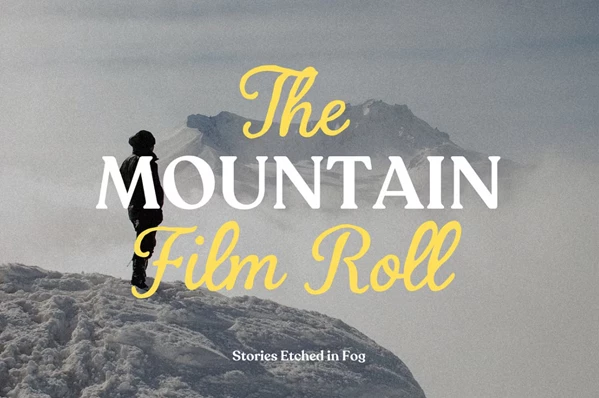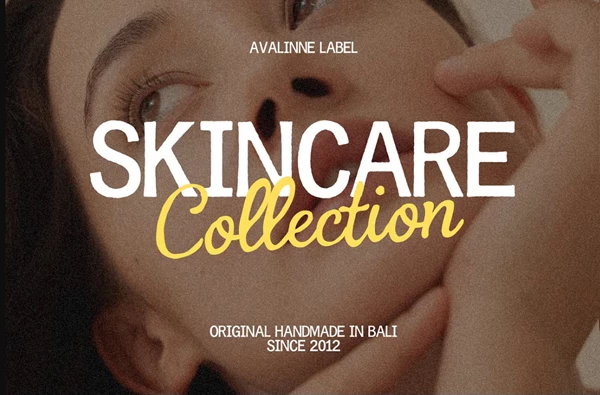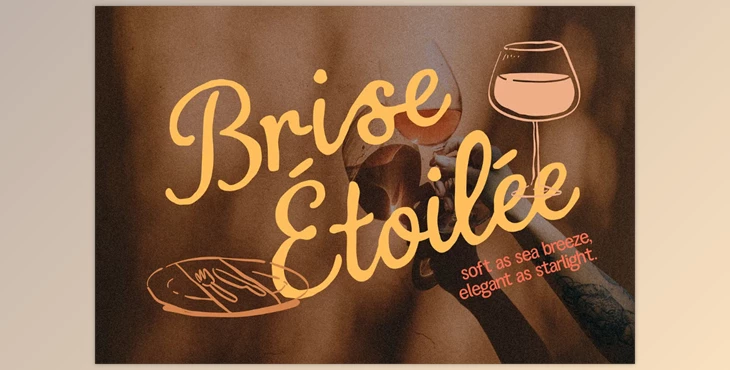
Brise Etoilee Elegant Script Font:
Brise Étoilée is a beautiful, coastal summer night handwritten font. The typeface is unique because of its elegance from the smooth curves and flowing rhythm. Brise Étoilée adds warmth, a feminine touch, and Mediterranean timeless charm to any project. If you are designing a logo for an artisanal skincare line or if you want to add a personalized touch to the wedding stationery, this typeface blends ease and sophistication effortlessly.
Some great features of Brise Etoilee Elegant Script Font:
- Covers both upper and lower case letters
- Provides all numerical digits and punctuation symbols
- Covers various languages, including Central and Western European languages
Best Uses
- Branding designs for product labels and boutiques. Designs for name cards, menus, and invitations for weddings, Headings for lifestyle blogs, and quotes for Instagram captions
- Stylish Journal, planner, and other stationery embellishments
Styling Tips
- The Brise Étoilée typeface was inspired by the Mediterranean coastline and is best paired with serif body text or minimalist sans serif fonts, where it stands out to create a beautiful contrast. It works best in medium to large sizes so that the beautiful details and ligatures can be appreciated.
"Brise Etoilee Elegant Script Font" Samples: